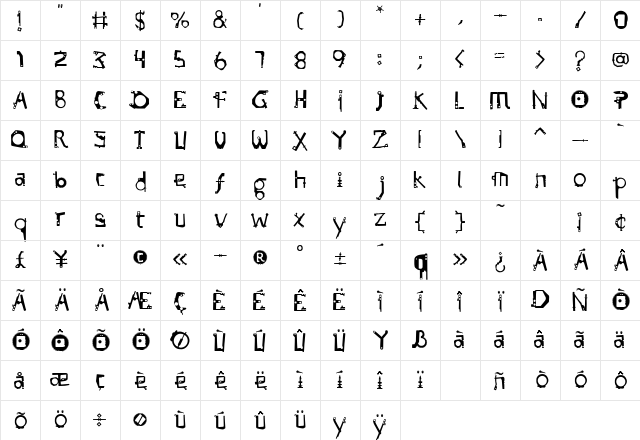
Complete Subamera Regular glyph index. Displaying only characters natively supported by Subamera Regular font.
Subamera is a composed and adaptable typeface that performs quietly and consistently across a wide range of design contexts.